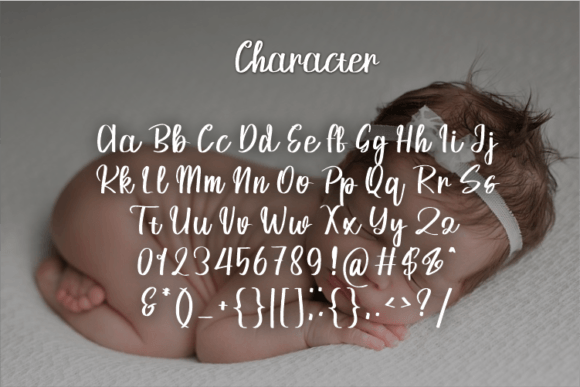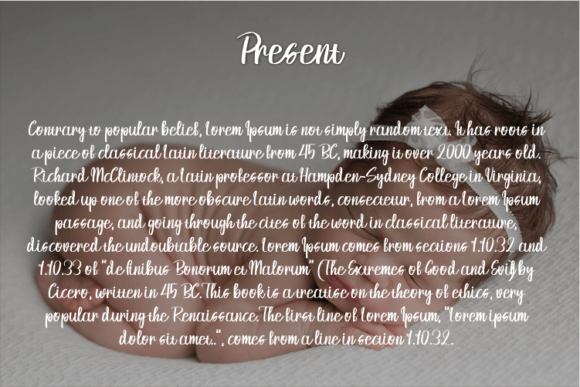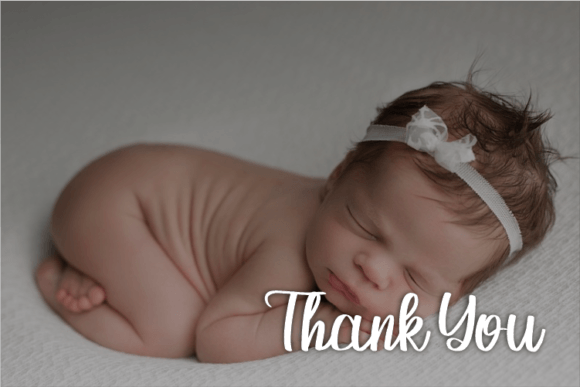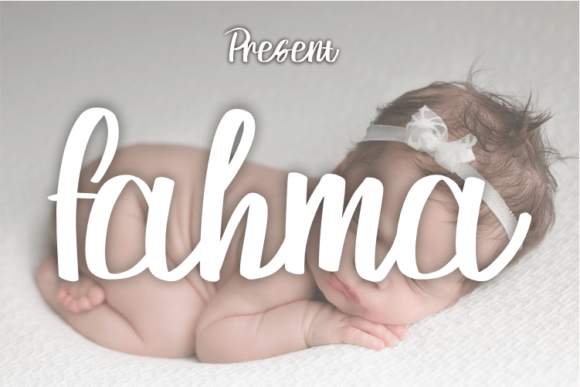
Fahma Font: Elevate Your Designs with Elegance and Sophistication
In the world of typography, a font can make or break a design. For designers and crafters seeking to add a touch of luxury and modernity to their work, Fahma Font is an excellent choice. This script typeface boasts a simple yet sophisticated style, perfect for creating elegant and refined designs that exude high-end quality.
What is Fahma Font?
Fahma Font is a script typeface designed with a simple and modern aesthetic in mind. Its clean lines, flowing curves, and subtle nuances create a sense of elegance and refinement, making it an ideal choice for a wide range of design applications.
Key Features of Fahma Font
- Simple and Modern Style: Fahma Font’s minimalist approach ensures that your designs look sleek and contemporary, perfect for brands and designers seeking a fresh and modern look.
- Elegant and Luxurious: The font’s refined lines and curves evoke a sense of luxury and sophistication, making it perfect for high-end branding, packaging, and editorial designs.
- Versatile: Fahma Font is suitable for a wide range of design applications, including logos, titles, quotes, and more.
Use Cases for Fahma Font
Fahma Font’s versatility makes it an excellent choice for various design projects, including:
- Elegant Logos: Create sophisticated and luxurious logos for high-end brands, fashion labels, or upscale services.
- Book and Movie Titles: Add a touch of elegance to book covers, movie posters, or DVD titles with Fahma Font’s refined and modern style.
- Fashion Brands: Elevate fashion brand identities with Fahma Font’s sophisticated and luxurious aesthetic.
- Magazines and Editorial Design: Use Fahma Font to create visually stunning magazine covers, articles, and editorials that exude elegance and refinement.
- Clothing and Apparel: Add a touch of luxury to clothing labels, packaging, and marketing materials with Fahma Font.
- Quotes and Typography: Use Fahma Font to create beautiful and inspiring typographic quotes, perfect for social media, posters, or wall art.
Benefits of Using Fahma Font
By incorporating Fahma Font into your designs, you can:
- Elevate Your Brand: Add a touch of luxury and sophistication to your brand identity, helping you stand out in a crowded market.
- Enhance Readability: Fahma Font’s clean and simple style ensures excellent readability, making it perfect for body text, titles, and headings.
- Increase Versatility: Use Fahma Font across various design applications, from logos and titles to quotes and editorial design.
Tips for Using Fahma Font Effectively
To get the most out of Fahma Font, consider the following tips:
- Pair with Contrasting Fonts: Combine Fahma Font with contrasting fonts to create visual interest and hierarchy in your designs.
- Experiment with Colors: Fahma Font looks stunning in a range of colors, from metallic and pastel shades to bold and bright hues.
- Use for Headlines and Titles: Fahma Font’s elegant and luxurious style makes it perfect for headlines, titles, and section headings.
Fahma Font is a versatile and elegant script typeface that can elevate your designs to new heights. With its simple yet modern style, Fahma Font is perfect for creating luxurious and refined designs that exude sophistication and high-end quality. Whether you’re a designer, crafter, or brand owner, Fahma Font is an excellent choice for adding a touch of elegance and luxury to your work.